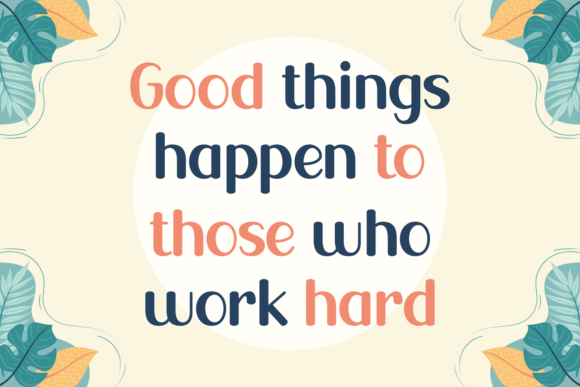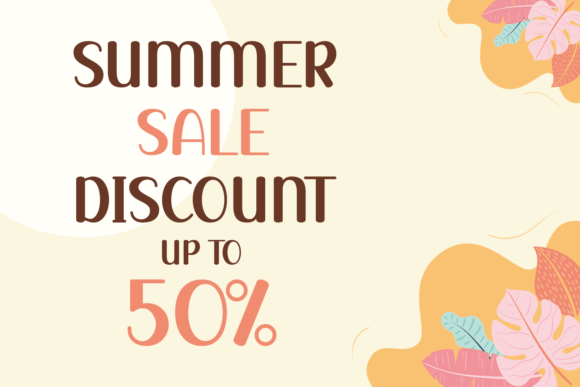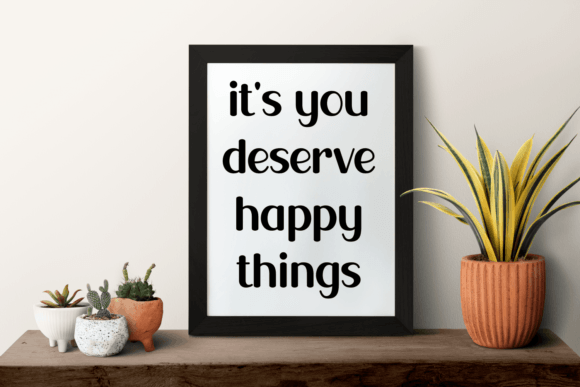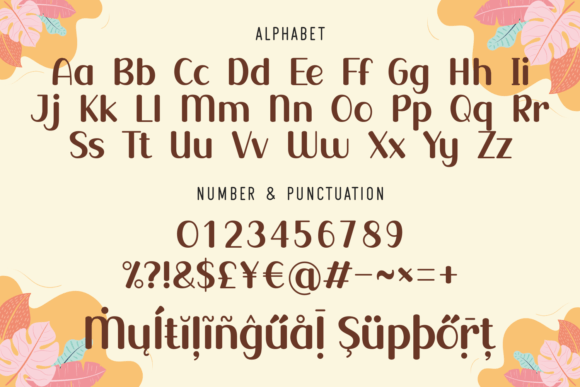
Sunday Stories Font
About Sunday Stories Font
“Sunday Stories” is a clean, relaxed, and friendly handwritten font that brings a sense of ease and simplicity to your designs. With its neat and straightforward style, this font is versatile and suitable for a wide variety of design projects. Its clean aesthetic and friendly demeanor make it a potential favorite, fitting seamlessly into diverse occasions and applications.
The simplicity of “Sunday Stories” lends itself well to a range of design possibilities. Whether you’re working on invitations, cards, social media graphics, or any other creative endeavor, this font adds a touch of charm without sacrificing readability. Its clean lines and relaxed strokes make it a reliable choice for conveying a laid-back and approachable vibe.
The versatility of “Sunday Stories” makes it a go-to font for various occasions. Its clean and friendly handwritten style is well-suited for creating a welcoming atmosphere, making it an ideal choice for projects that aim to connect with audiences on a personal level.
In essence, “Sunday Stories” is more than just a font; it’s a design companion that effortlessly adapts to different scenarios. Its clean, relaxed, and friendly characteristics make it a font that you can rely on, no matter the occasion. Let “Sunday Stories” be the go-to choice in your toolkit for adding a touch of simplicity and friendliness to your designs.